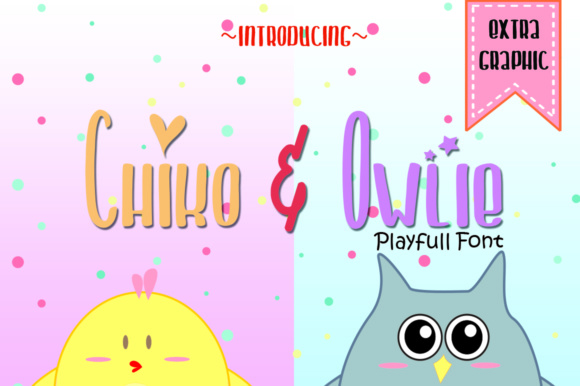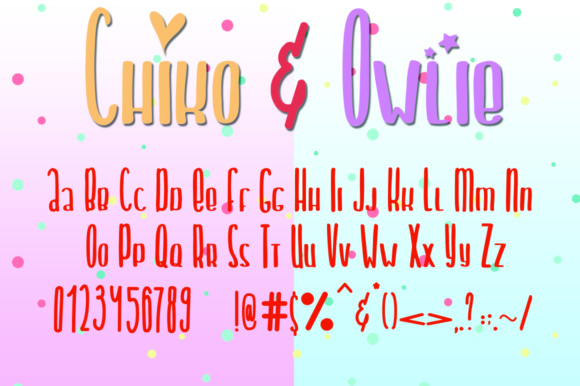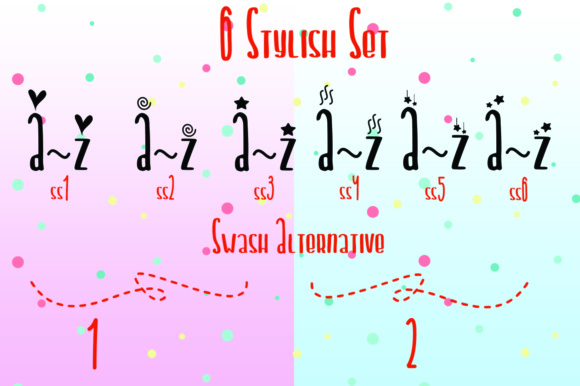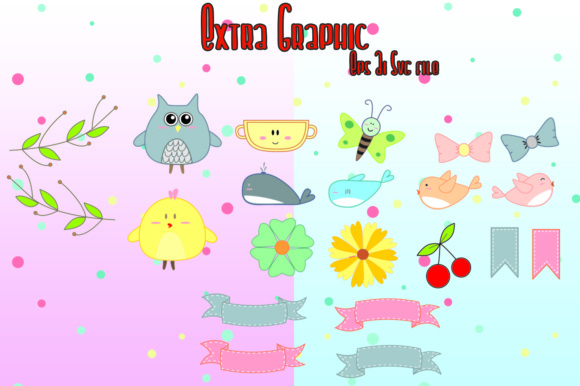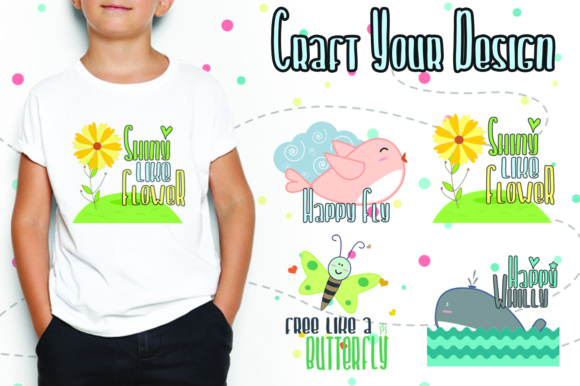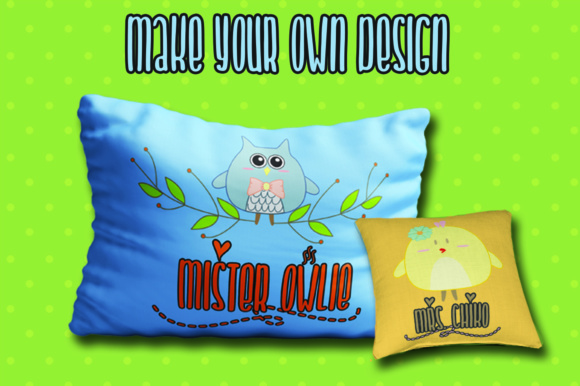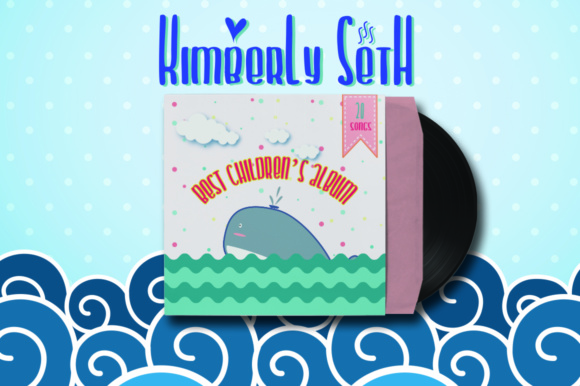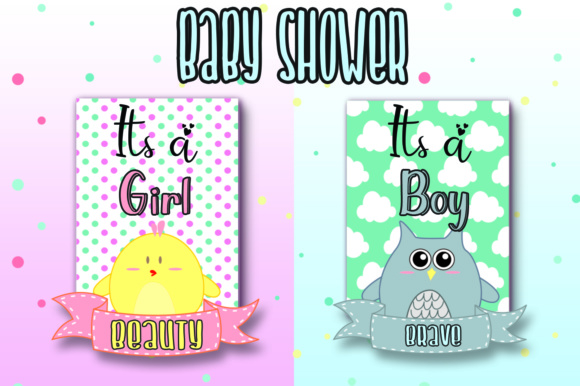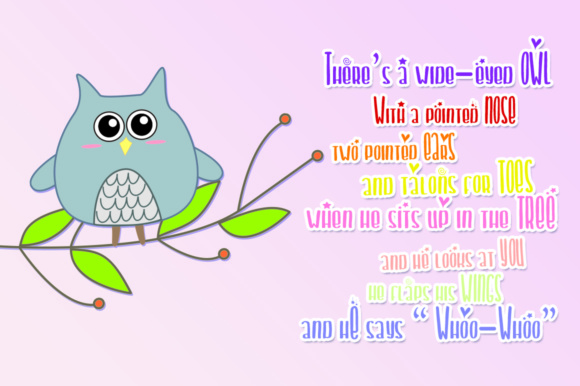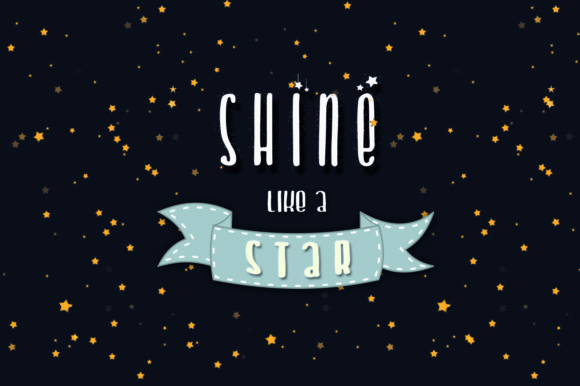
Chiko & Owlie Font
Chiko & Owlie is a cute playful font. It has a sweet, smooth, and youthful touch which makes it a great choice for multiple design projects, such as: children stuff, invitations, decorations, posters, quotes, or even just a simple craft!
Chiko & Owlie includes extra hand drawn, cute graphics in every format.